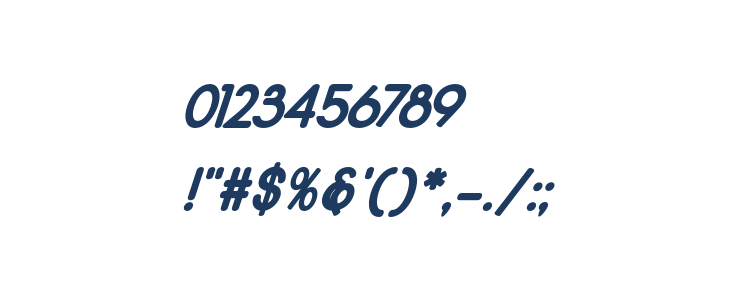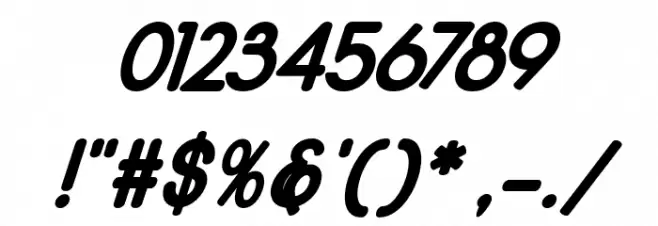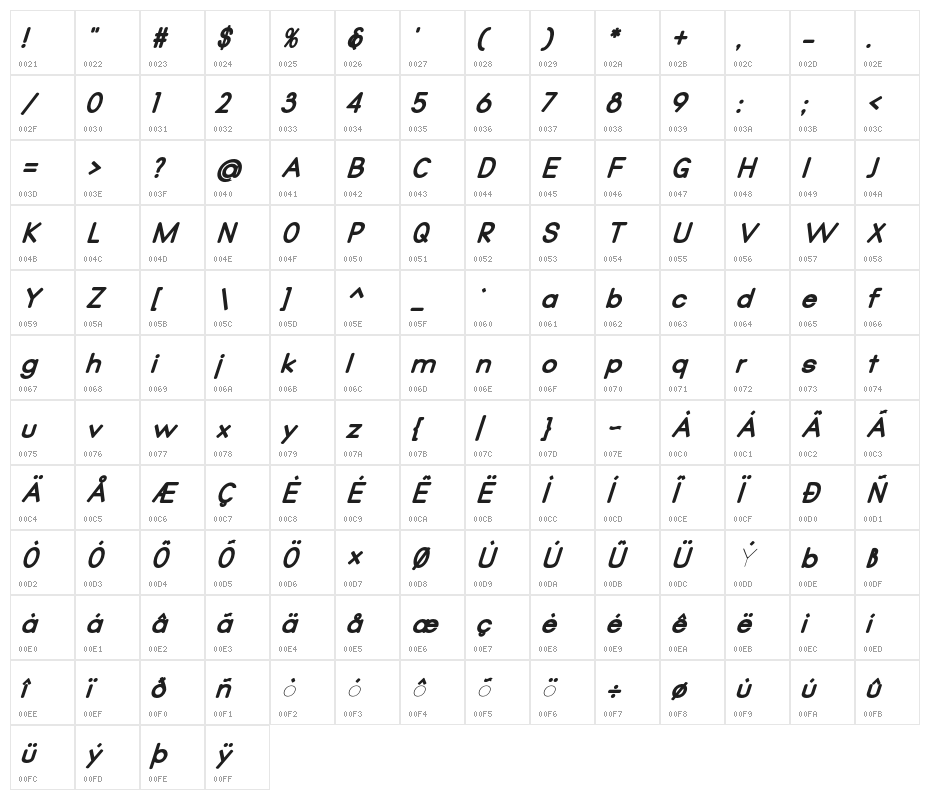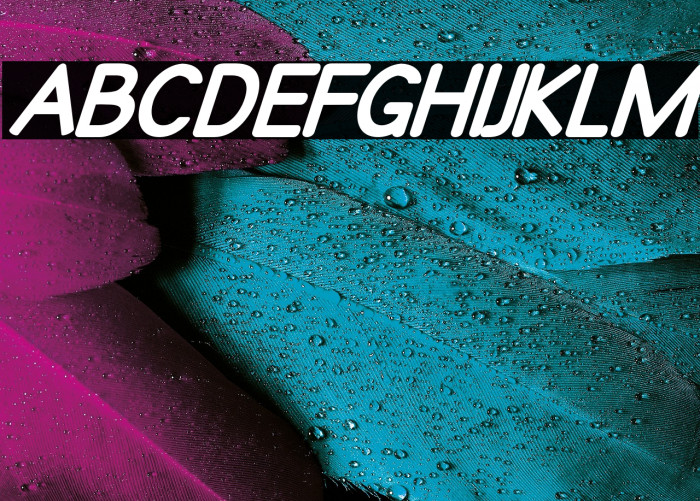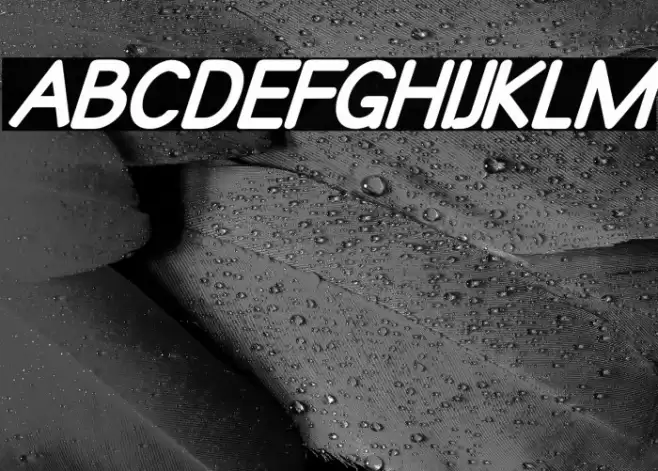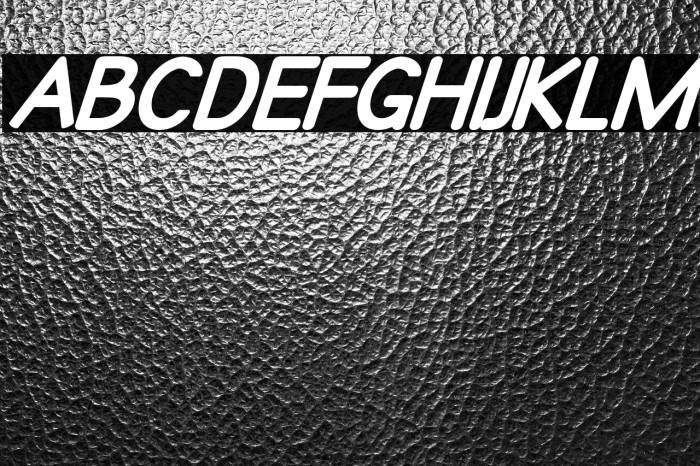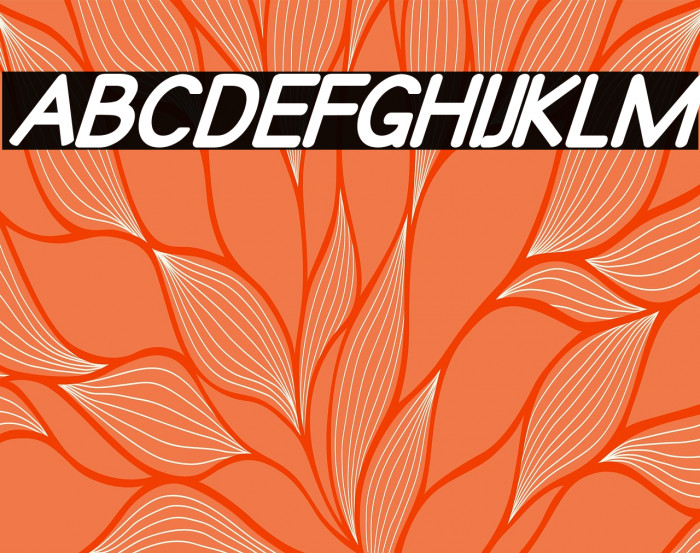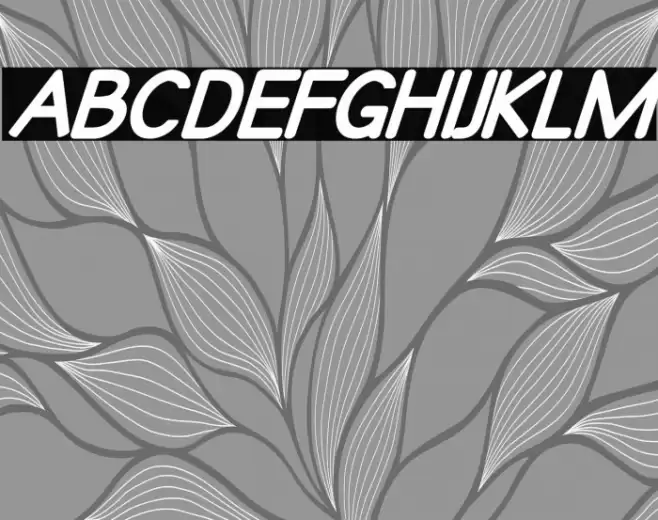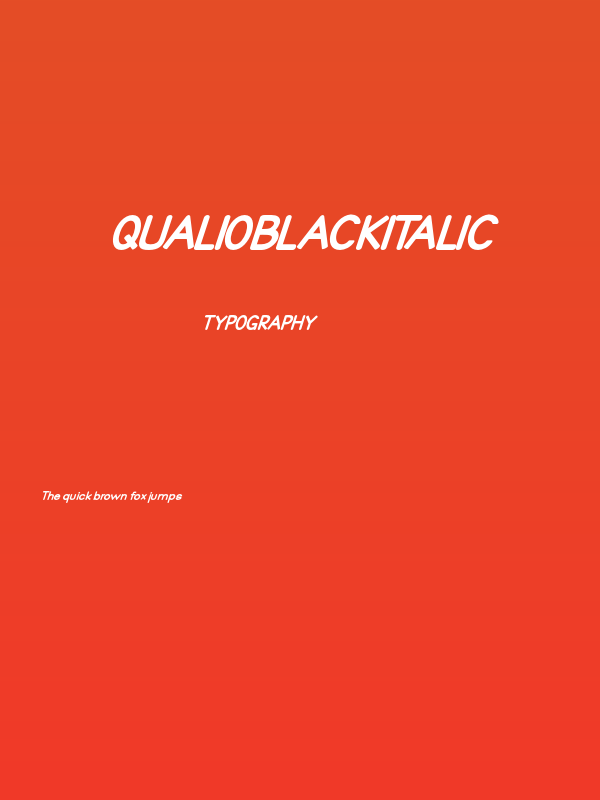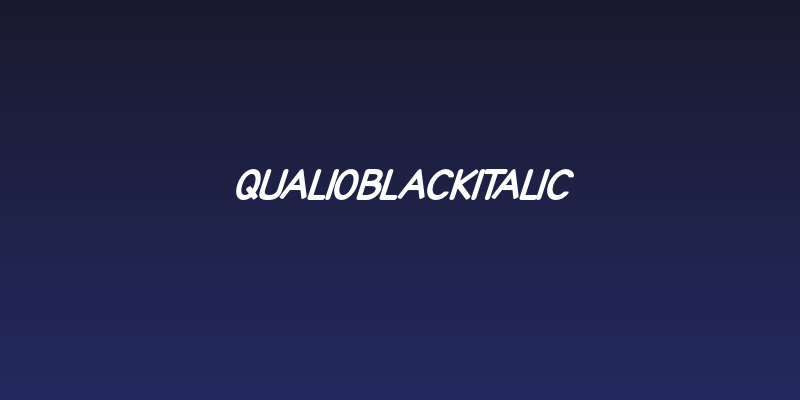
Qualioblackitalic Font
Qualioblackitalic Description
This font features a bold and dynamic style with a strong italic slant, giving it a sense of motion and energy. The characters are well-defined with smooth curves and consistent stroke widths, contributing to a modern and sleek appearance. The uppercase letters are slightly taller than the lowercase, maintaining a uniform width that enhances readability. Numbers and special characters are designed to match the overall aesthetic, ensuring a cohesive look across all text elements. The font's boldness and italic nature make it stand out, suitable for attention-grabbing headlines or impactful branding.